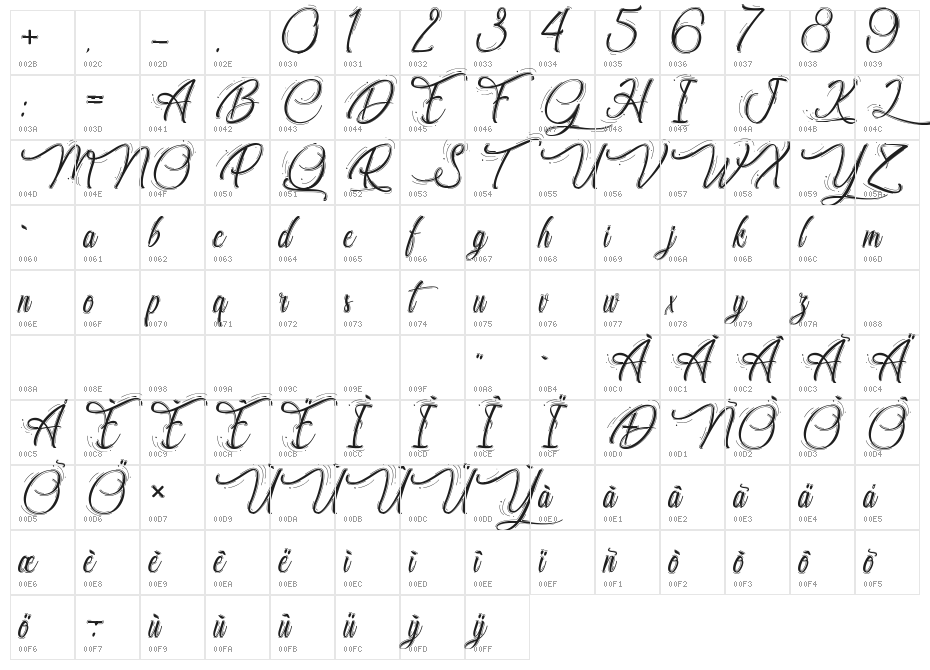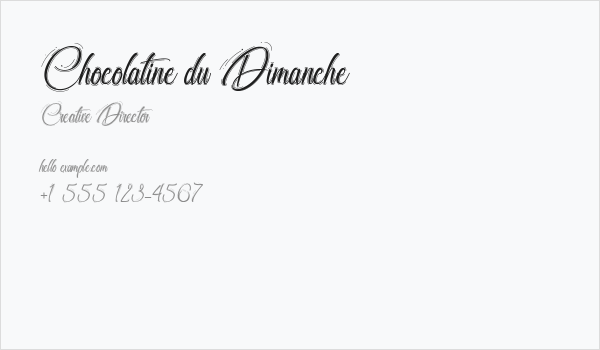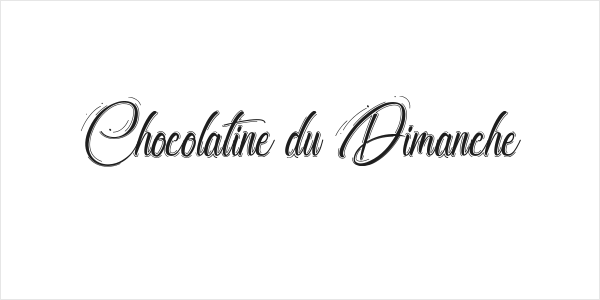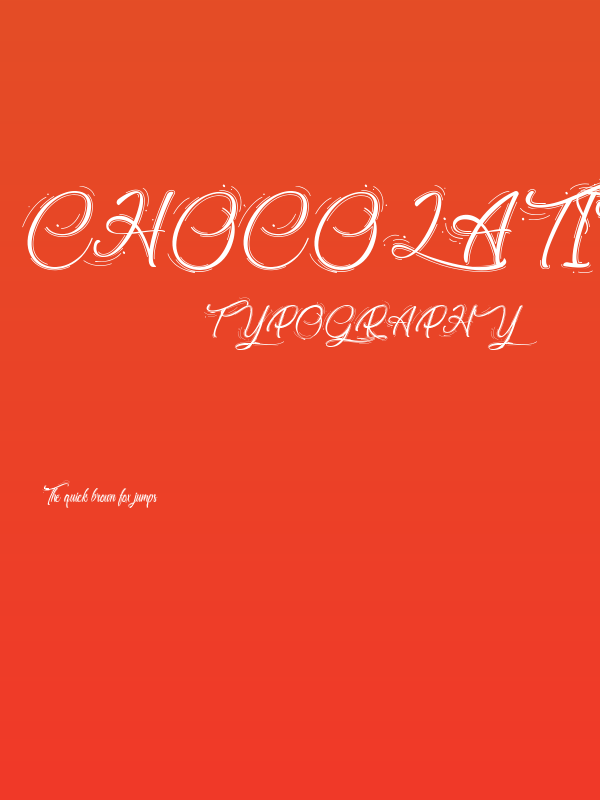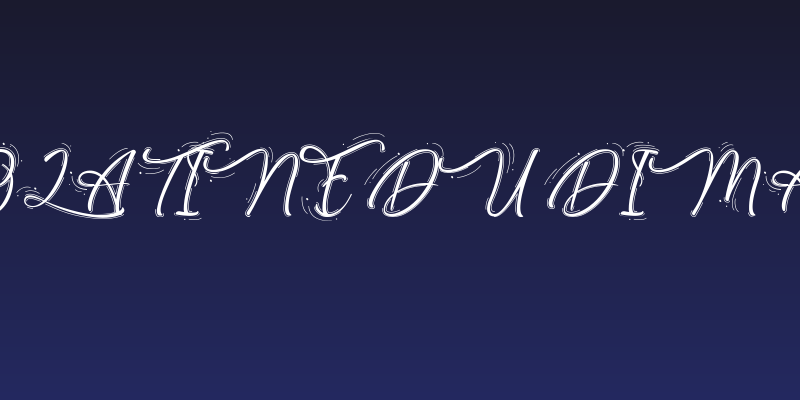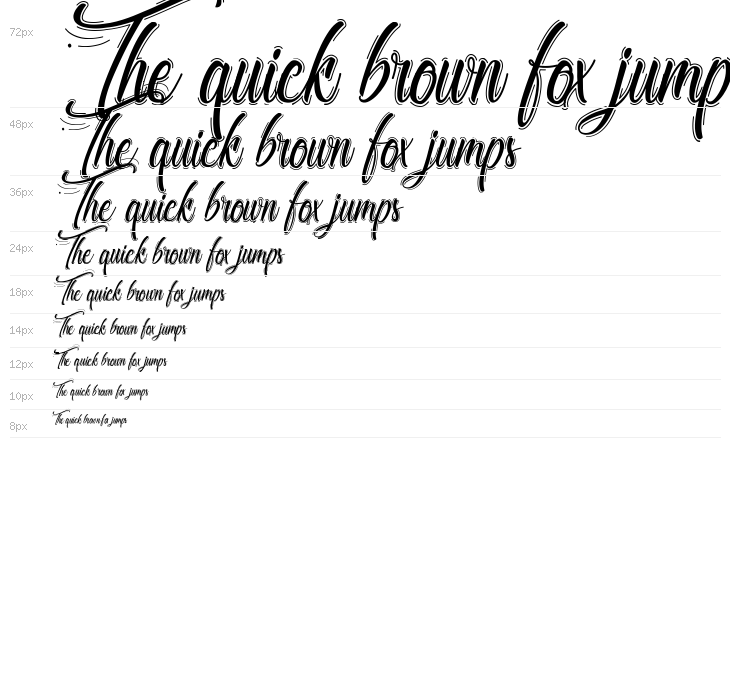
Chocolatine du Dimanche Font
Chocolatine du Dimanche Description
This elegant script font features a flowing, cursive style with intricate swashes and flourishes that add a touch of sophistication. The uppercase letters are particularly ornate, with extended loops and decorative elements that create a sense of movement and grace. The lowercase letters maintain a consistent style, with smooth curves and a slightly condensed form that enhances readability. The numerals are designed to match the overall aesthetic, with a balanced mix of curves and straight lines. Special characters like the ampersand and question mark are equally ornate, fitting seamlessly into the font's decorative theme. This font is ideal for projects that require a touch of elegance and artistic flair.